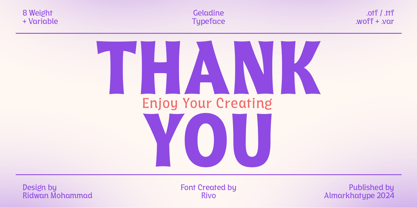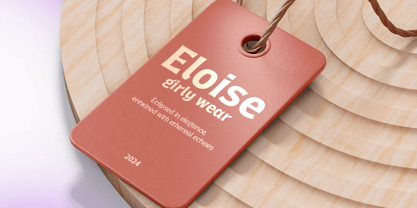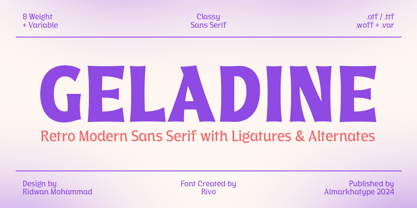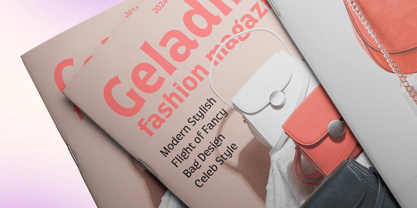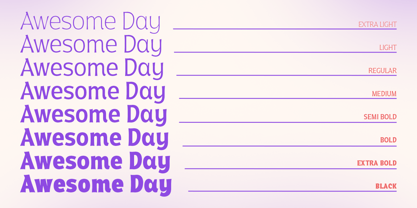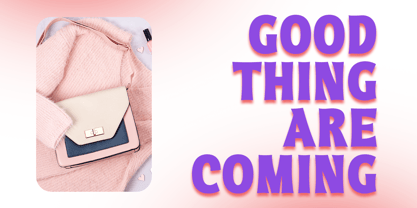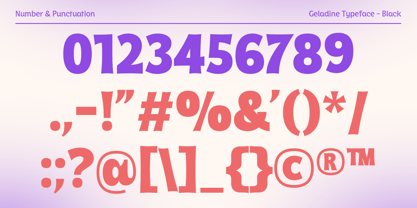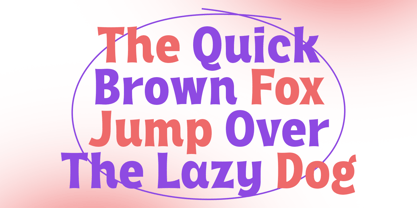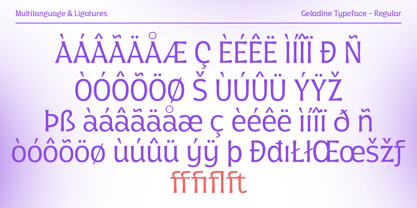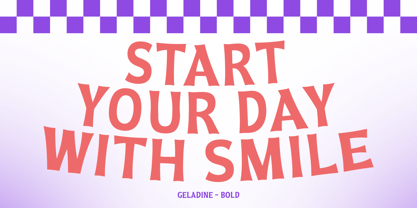
Geladine
by Almarkha Type
The Geladine Font Family was designed by Abdul Malik Wisnu and published by Almarkha Type. Geladine contains 8 styles and family package options. More about this family
Geladine is flare sans font, built on humanist quirks sans font, with a fluid touch. The concave stems feature flared terminals and extra weight at the x-height and baseline, providing a vibrant, natural feel. This design is perfect for headlines, short texts, and eco-friendly brand messaging, offering a fresh, organic flavor that stands out. The family includes 8 weight, from Extra Light to Black, and it’s available in variable font for adjusting your custom weight for fine precision.
Designers: Abdul Malik Wisnu
Foundry: Almarkha Type